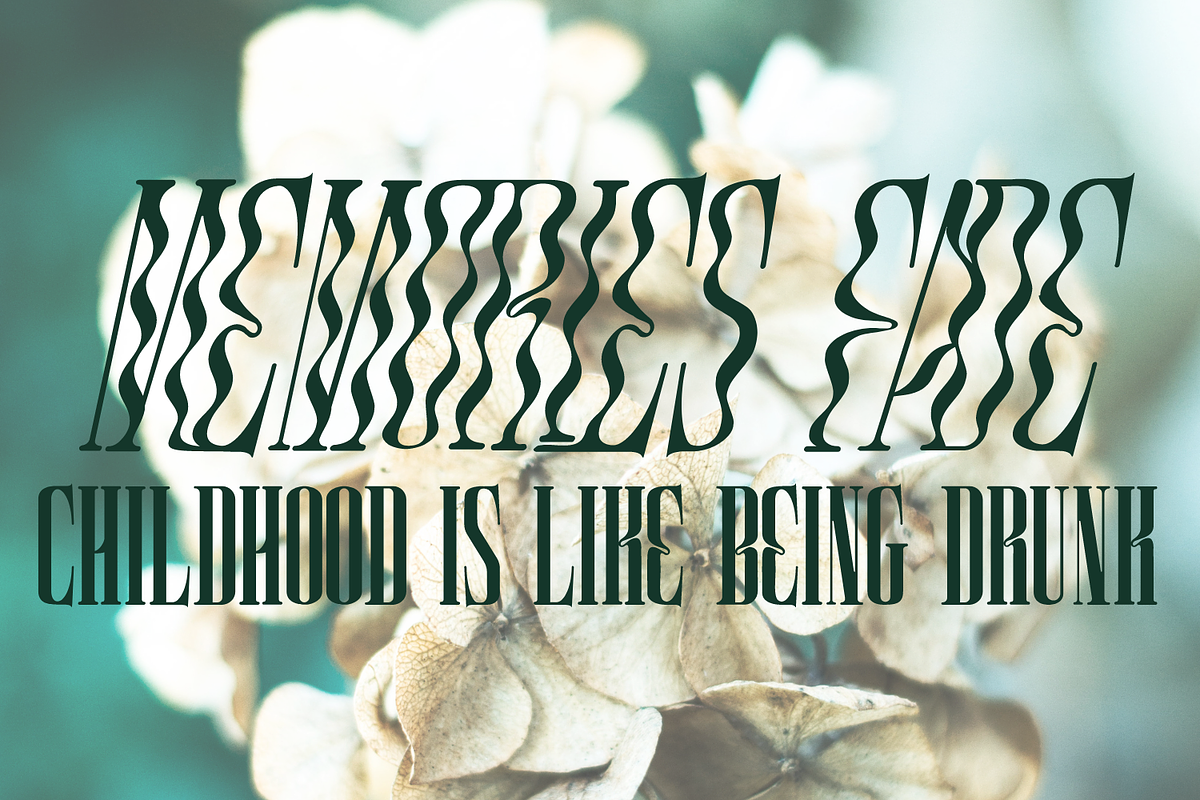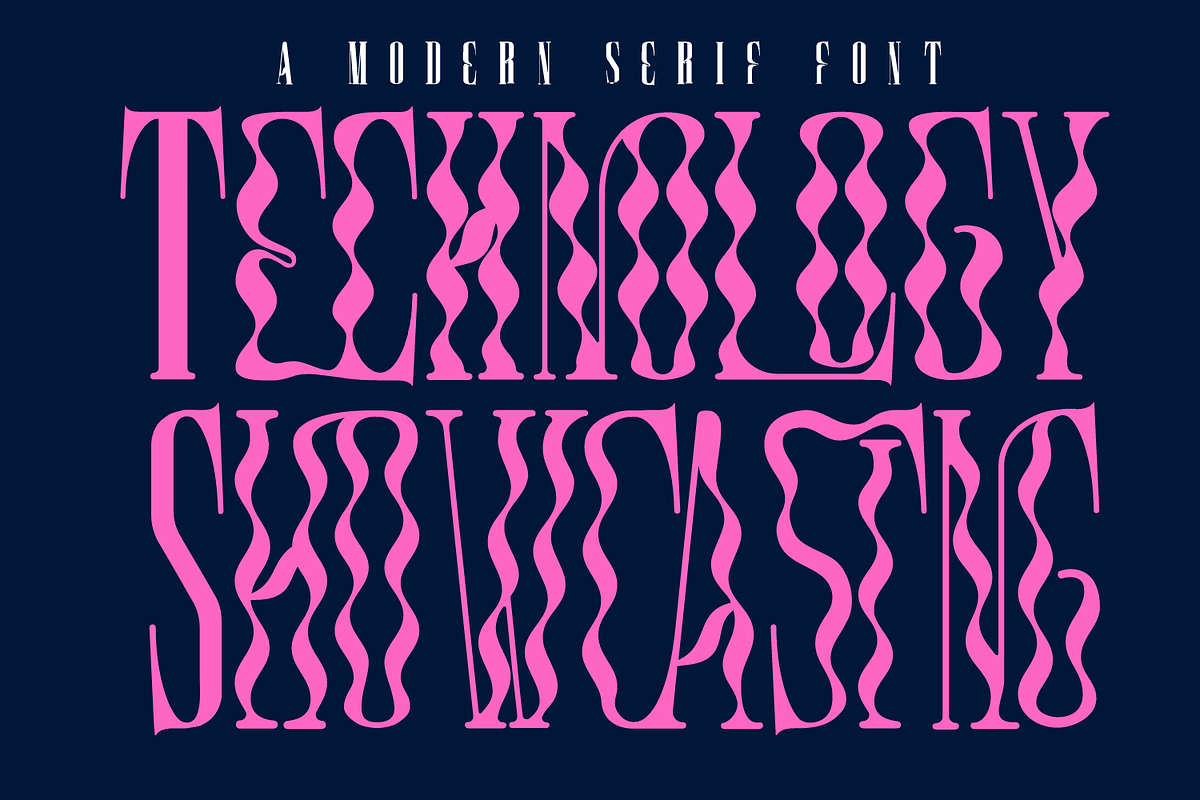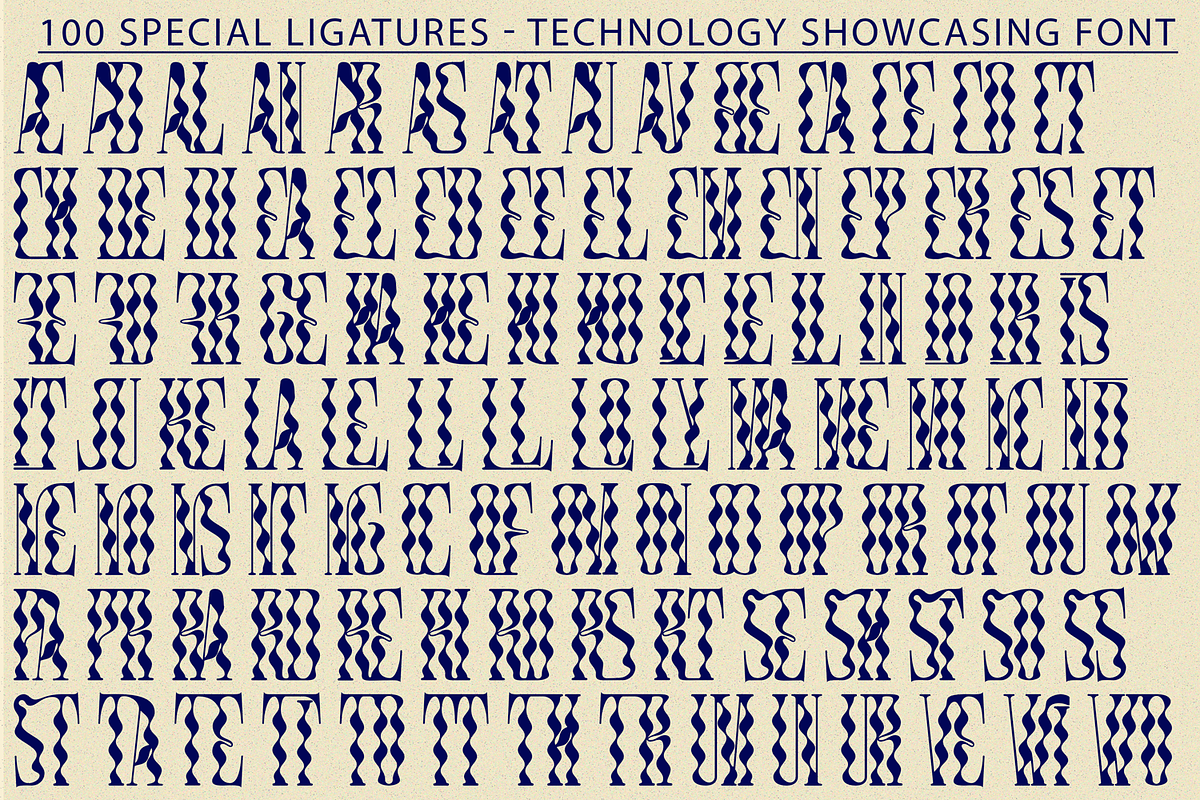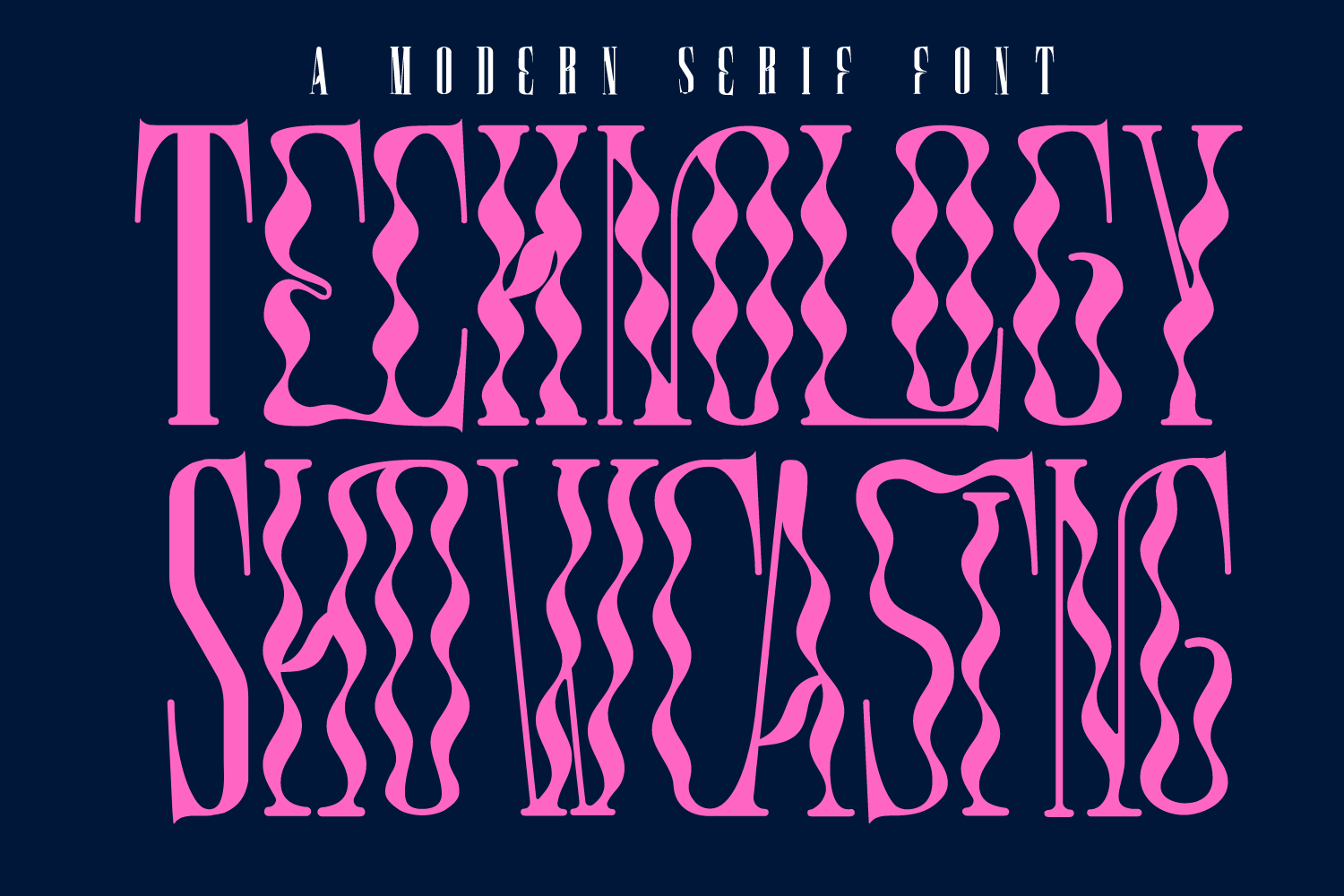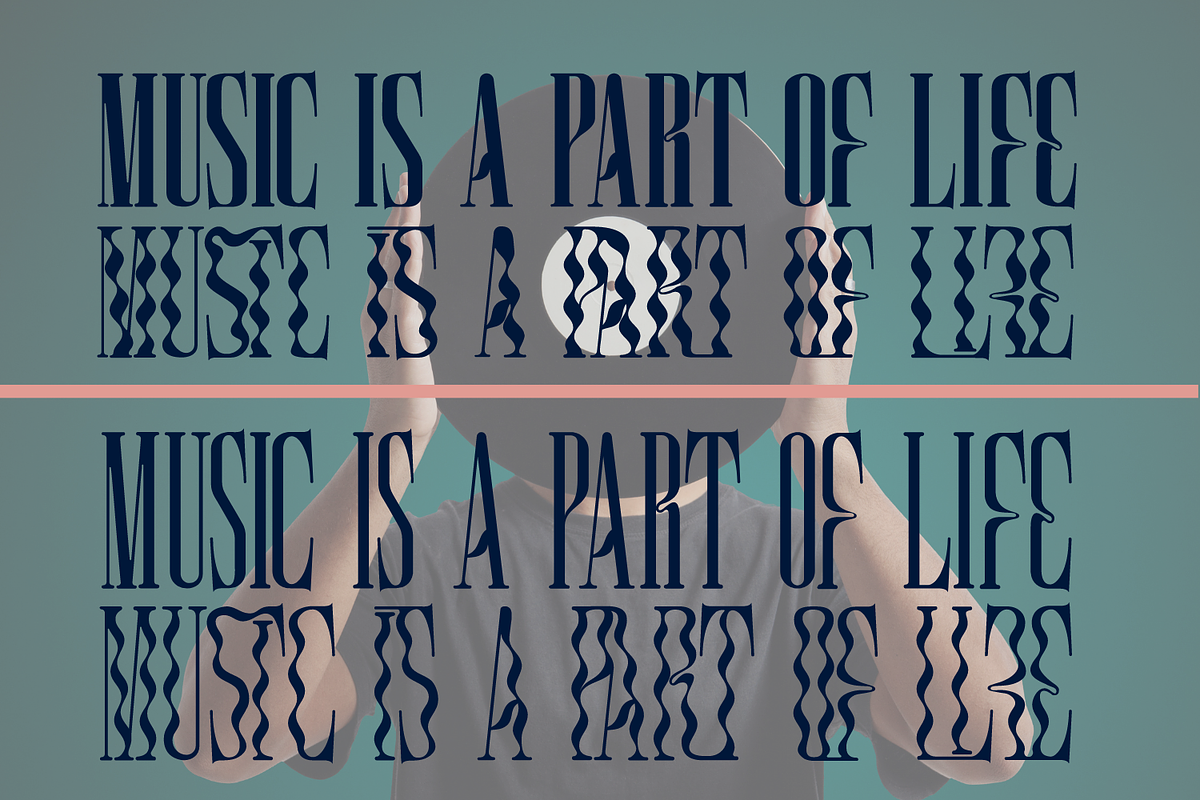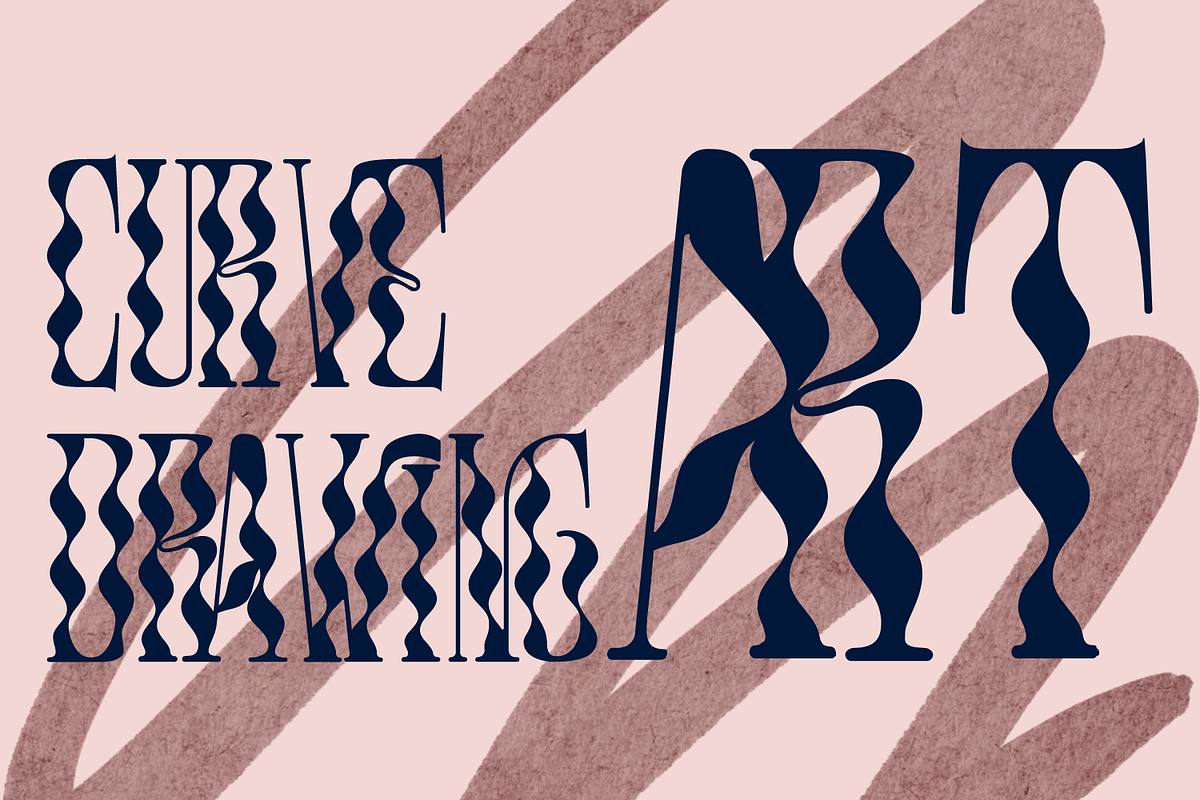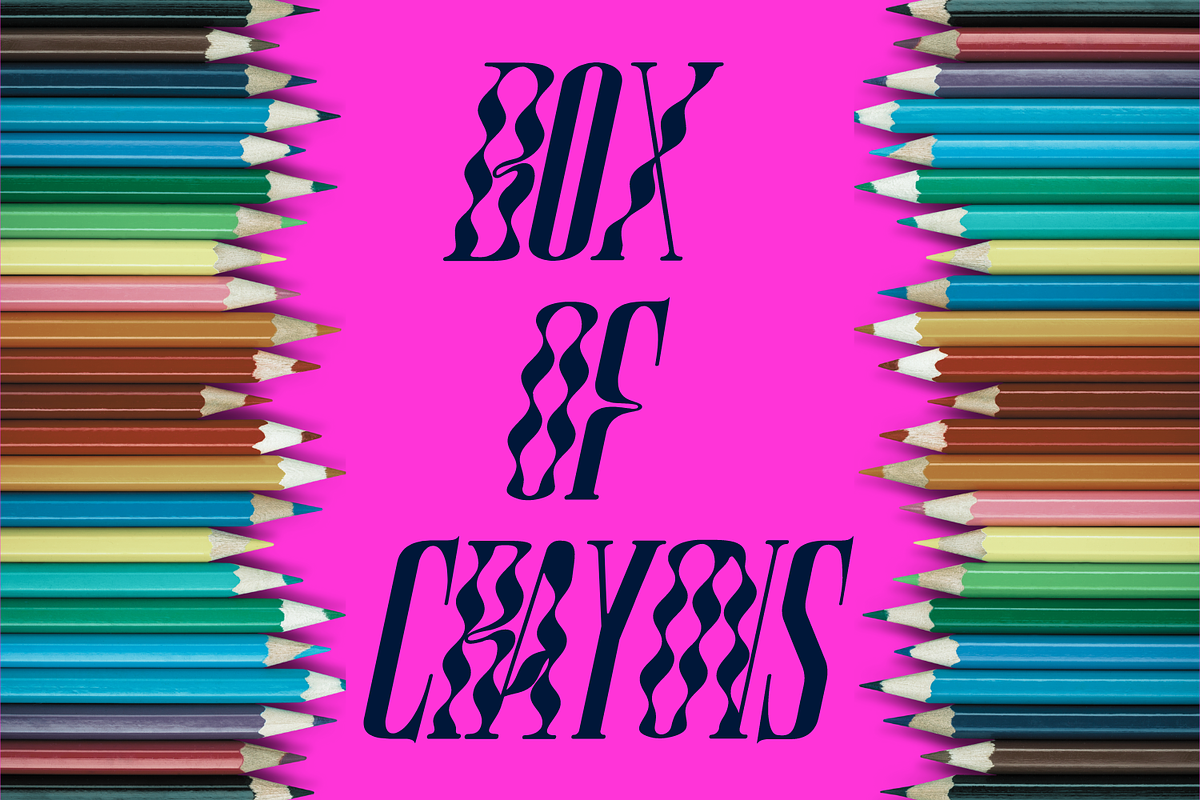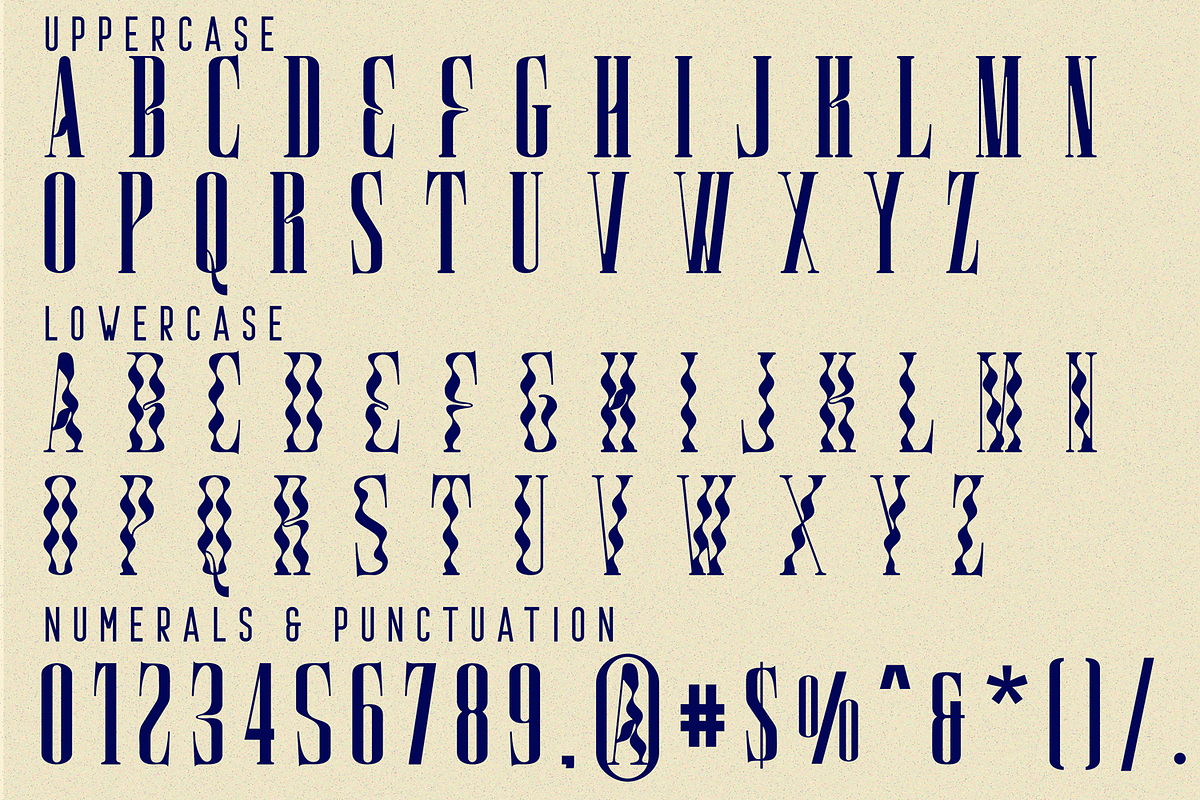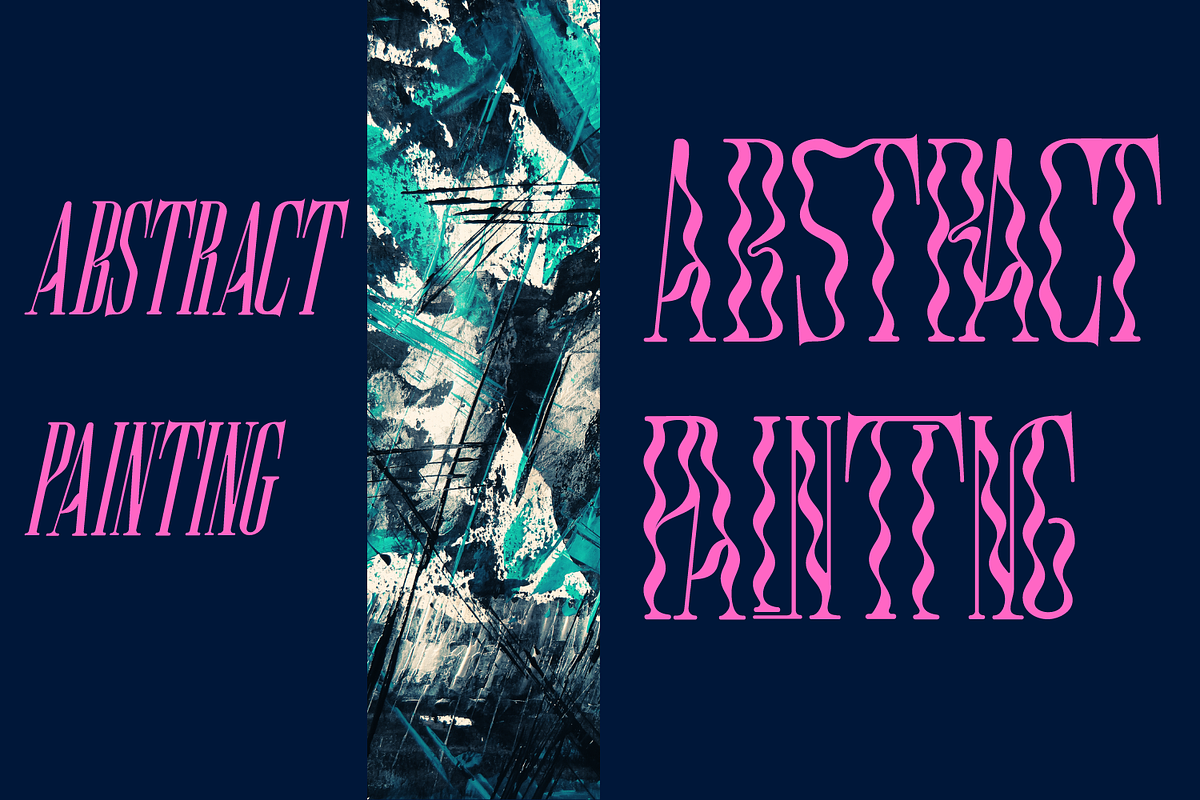
Technology Showcasing Font
Technology Showcasing Font is a condensed font, wavy display face. it was designed with a synthesis of the future and the past. While it carries sharper and futuristic lines than the future, it also incorporates the organic structure of the past. A type piece we loved, originally inspired by Brutalist Architecture. It featured some very interesting glyphs, mainly super narrow and with extra deep inktraps. It's a massive font that will grab the attention. It's gonna look great on a magazine spread, cover or a poster in large print.
Technology Showcasing was built with OpenType features and includes 100 ligatures, alternate, numbers, punctuation, and it also supports other languages.
ac ad al an ar as at au av be ca ce ch co ct de di ea ec ed ee el em en ep er es et fe fo fr ge ha he hi ho ie ic il in io ir is it ju ke la le li ll lo ly ma me mi nc nd ne ng no nt ns oc of om on oo op or ot ou ow pa pr ra rd re ri ro rs rt se sh si so ss st ta te th ti to tr tt um un ur ve wi wo
- Special Ligatures